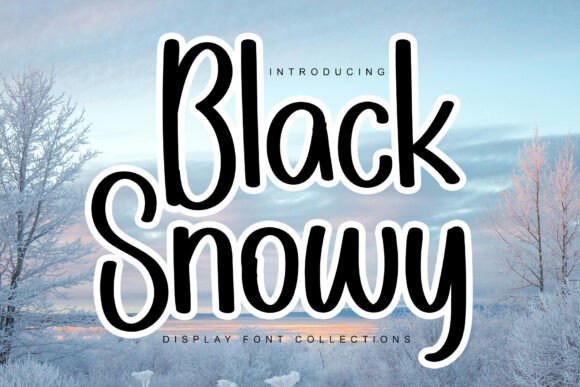
Introducing Black Snowy Font: The Perfect Choice for Cheerful Designs
Are you looking for a font that can add a touch of fun and quirkiness to your designs? Look no further than the Black Snowy Font. This display font is perfect for use on cheerful topics and is especially suitable for children’s themed designs. When combined with bright colors, Black Snowy Font can create a visually appealing and engaging design that is sure to capture the attention of your audience.
What Makes Black Snowy Font So Special?
Black Snowy Font is a unique and creative font that is designed to add a touch of personality to your designs. The font features a fun and quirky style that is perfect for use on cheerful topics. The bold and playful design of Black Snowy Font makes it ideal for use on children’s themed designs, such as posters, flyers, and brochures.
Key Features of Black Snowy Font
- Fun and Quirky Design: The font features a fun and quirky design that is perfect for use on cheerful topics. The bold and playful style of Black Snowy Font makes it ideal for use on children’s themed designs.
- Perfect for Children’s Themed Designs: Black Snowy Font is especially suitable for children’s themed designs, such as posters, flyers, and brochures. The font’s fun and quirky style is sure to appeal to children and can help to create a visually appealing design.
- Works Well with Bright Colors: Black Snowy Font works well with bright colors, which makes it perfect for use on designs that require a bold and eye-catching look.
In conclusion, Black Snowy Font is a fun and quirky display font that is perfect for use on cheerful topics. The font’s bold and playful style makes it ideal for use on children’s themed designs, and its PUA encoding makes it easy to access all of the amazing glyphs and ligatures. Whether you’re a designer or just starting out, Black Snowy Font is a great choice for any design project.
- What is Black Snowy Font? Black Snowy Font is a fun and quirky display font that is perfect for use on cheerful topics.
- What is Black Snowy Font best used for? Black Snowy Font is best used for children’s themed designs, such as posters, flyers, and brochures.